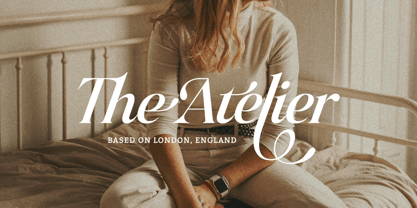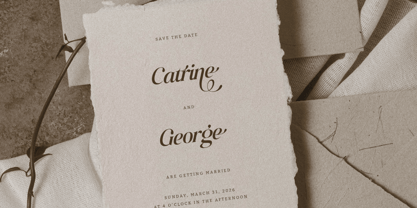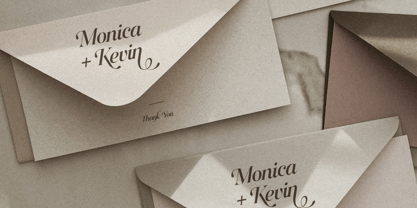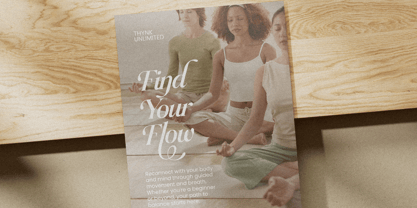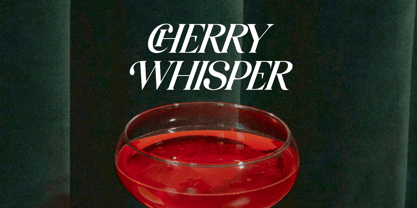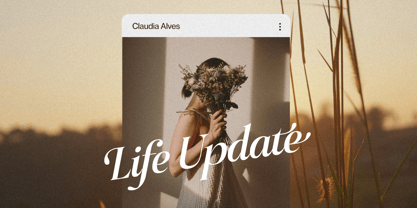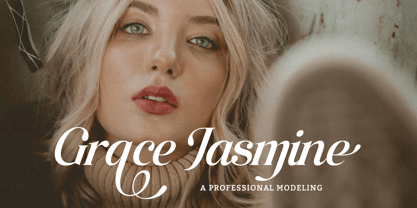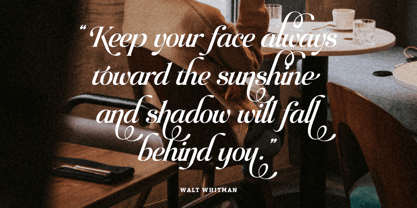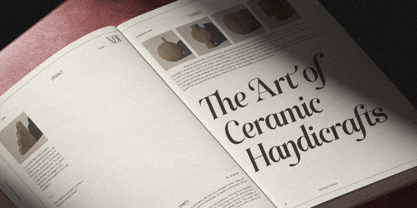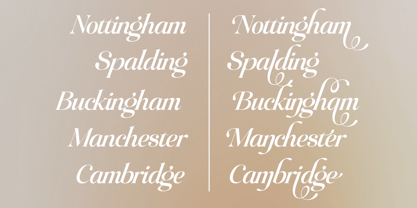
Raillouise
by Heinzel Std
The Raillouise Font Family was designed by Nofi Sofyan Hadi and published by Heinzel Std. Raillouise contains 1 styles. More about this family
Raillouise is a stylish script typeface that blends modern elegance with timeless calligraphy. Designed with smooth curves, flowing strokes, and refined ligatures, this font delivers a luxurious and feminine feel perfect for branding, wedding invitations, logos, packaging, and social media designs. Its natural handwritten style creates an authentic and sophisticated look, while the carefully crafted alternates and swashes add versatility and charm to every project. Raillouise is ideal for designers seeking a high-end script font that stands out with grace and personality.
Designers: Nofi Sofyan Hadi
Foundry: Heinzel Std